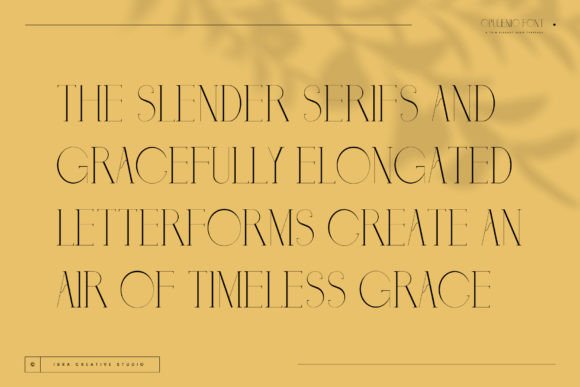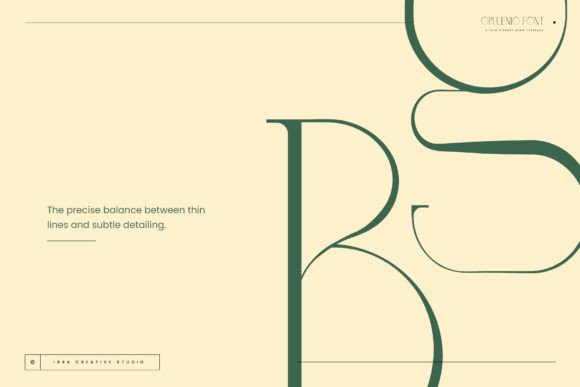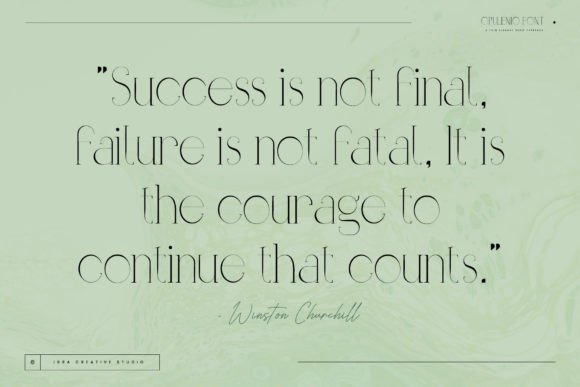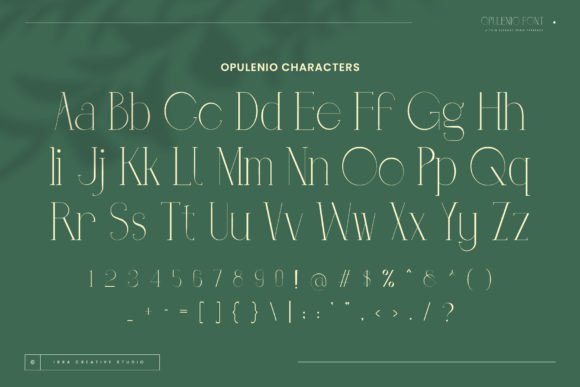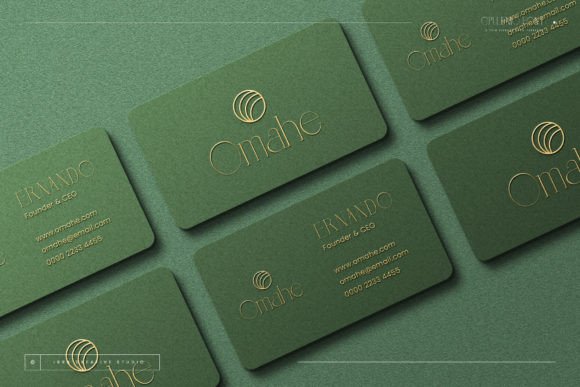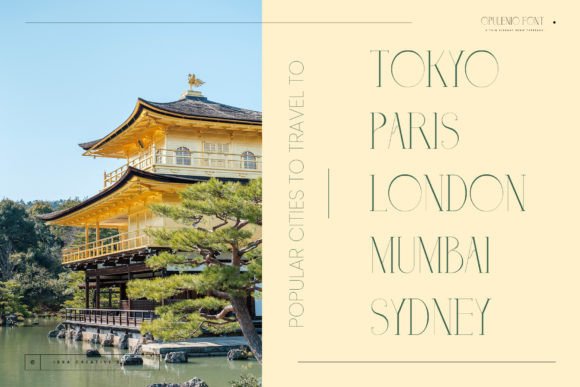
Introduction to Opulenio Font
Imagine you’re working on a high-end branding project, pouring your heart and soul into crafting a unique visual identity for a luxury client. You’ve spent hours tweaking colors, shapes, and textures, but something’s missing – a font that truly embodies the essence of opulence. This is where the Opulenio Font comes in, a game-changing design resource that elevates your creative project to new heights.
As a designer, you’re always on the lookout for that one special element that sets your work apart. The Opulenio Font is that elusive gem, offering a level of sophistication and refinement that’s hard to find in other typefaces. With its delicate strokes and slender serifs, this font exudes a sense of timeless elegance, perfect for projects that demand a touch of modern luxury.
Honest Review: Opulenio Font
I recently stumbled upon the Opulenio Font while searching for a unique design resource for a creative project. I was impressed by the sleek and modern aesthetic it offers, making it perfect for a wide range of applications.
Here’s what I like about the Opulenio Font:
- ✨ High quality: The font is crisp and clear, making it ideal for both print and digital use.
- ⚠️ Limited font styles: While the Opulenio Font is stylish, it’s limited to a few font styles, which may not be sufficient for complex design projects.
Overall, the Opulenio Font is a great addition to any designer’s toolkit, offering a modern and sleek aesthetic at no cost. While it may not be suitable for every project, it’s definitely worth considering for creative projects that require a high-quality, free design resource.
Tips for Getting the Most Out of Opulenio Font
Use the Opulenio Font in your creative project to add a touch of elegance and sophistication. This high-quality font is perfect for designing business cards, logos, and other design elements. With its transparent background, you can easily combine it with other design resources.
The Opulenio Font is ideal for use in various design projects, including:
– Business cards and letterheads
– Logos and branding materials
– Brochures and flyers
– Social media graphics and ads